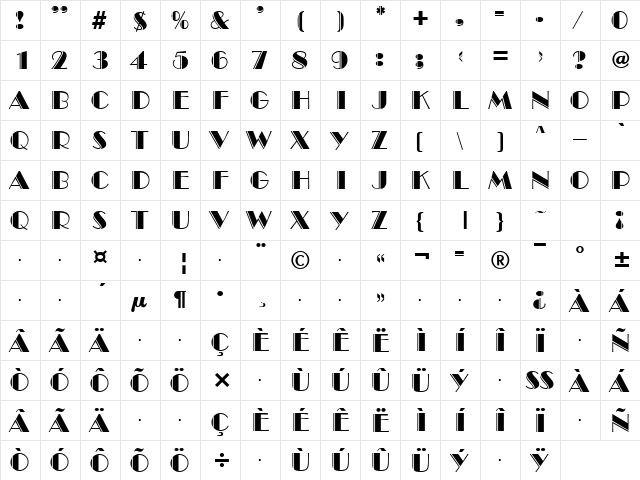
Theatre Regular
Design Context for Theatre Typeface
Theatre is a composed and adaptable typeface that performs quietly and consistently across a wide range of design contexts.